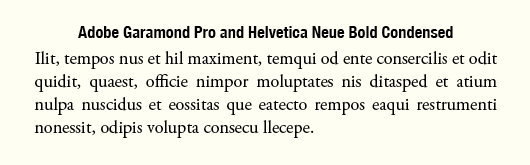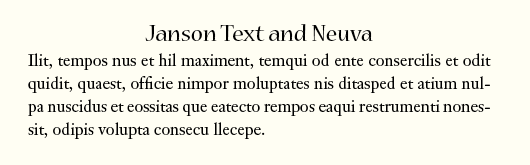
On Monday mornings I look over the book design projects I’m working on to get a sense for how the week will shape up. This is a persistent form of optimism I can’t seem to shake. The week never works out the way I think it will, but I keep doing this just the same.
This week I was thinking about typefaces and started to take an inventory of type usage in the projects I’ve worked on recently at Marin Bookworks. I was a little surprised at the end, but I learned something too.
Typeface Combinations That Will Work in Your Book
I was surprised there was so much variety in this list. I tend to return to the same typefaces over and over again, and some are like old friends I’ve shared a lot of experiences with.
Here I want to go the next step. In each of these cases the typefaces had to enhance the readability and reflect something of the tone and genre of the individual work. Each of these combinations was arrived at after deliberation and comparison with other typefaces, in a collaboration between the book designer and the author/client.
If your book is in one of these genres, take a look at these combinations to create an effective and great-looking reading experience for your readers.
7 Typeface Combinations You Can Use
- Collection of interviews—This book uses Electra for the body type and Myriad Pro Black for heads. This is a combination you won’t see very often, and one I’ll be writing about in an upcoming article on font combinations for use in your books.
- Alternative health essays—Adobe Garamond Pro does excellent work here in dealing with a large number of formats requiring different sizes and keeping harmony on the page. Helvetica Neue Condensed for heads.
- Erotic stories—Here I used Warnock Pro, a very classy text face that offers a lot of flexibility when it comes to page length, and Myriad Pro Regular for heads.
- Historical biography—This heavily illustrated and annotated history seemed to demand to be set in Adobe Caslon Pro. Display type is set in several variations of Fontin Sans, a typeface that’s got style and legibility to add to the mix.
- Adventure memoir—Another heavily-illustrated book, this one has parallel text streams and an active approach to on-page graphics. The body type is Century Old Style and the heads are Electra Bold Display. I found the Electra had to be over 20 points to balance the Century, but the combination works beautifully.
- Supernatural novel—This upcoming novel based on old legends was derived from a template in my archives. This allows me to lower the cost of an interior design substantially. I then pick typefaces suitable to the specific book. In this case, I’m using Janson Text for the body type, one of the most-used typefaces in book production, and the lovely Nueva for display fonts.
- Self-help—A book embodying the unique worldview of the author, this design needed to accommodate checklists, activities and the other conventions of this genre. The text is set in the versatile Adobe Garamond Pro, and Chaparral is used for display purposes, with Franklin Gothic appearing in break-out text and subheads.
Every one of these typeface combinations produces a different and unique look. Combined with the typography, the page size and the use of graphic elements, you can mold these looks to suit the genre of the book you’re designing. You can use this list as a guideline, or switch the typefaces around to see what you get.
The more you set up pages and see what kind of impression they give, the more comfortable you’ll be with type design for your books.
Hi, I found this helpful, thanks. I’m planning to write a book and have been doing some sample page layout designs. I’m set on using serifs for headings and chapters, AND serifs for body copy. What are the rules for combining serifs?
Larry, there’s no specific “rule” about using serif typefaces. You can use serif styles throughout the book if you like, (I’ve often done this myself). The test is how your layout ends up looking on the page.
Hi
I’ve been reading a lot of your posts and find them very interesting and inspiring.
I have a question: a book project of mine requires two fonts in the body text: one “normal” and one used for a special kind of dialogue (a very dominant and cold voice).
What do you think about using two fonts like that?
– Rikke
Rikke, I’ve always resisted the push to use more than one body text font. Ideally, the writing itself should make abundantly clear who is speaking and the tone (or “voice”) of the various characters. In many cases, relying on a separate font is a kind of crutch to support ineffective writing. Having said that, in some cases (like parallel text streams) there is a use for a second font, and the requirements would be 1) that it harmonize well with the base font, while 2) being different enough to clearly indicate to the reader that something different is going on. I’m working on a post on this subject, so stay tuned.